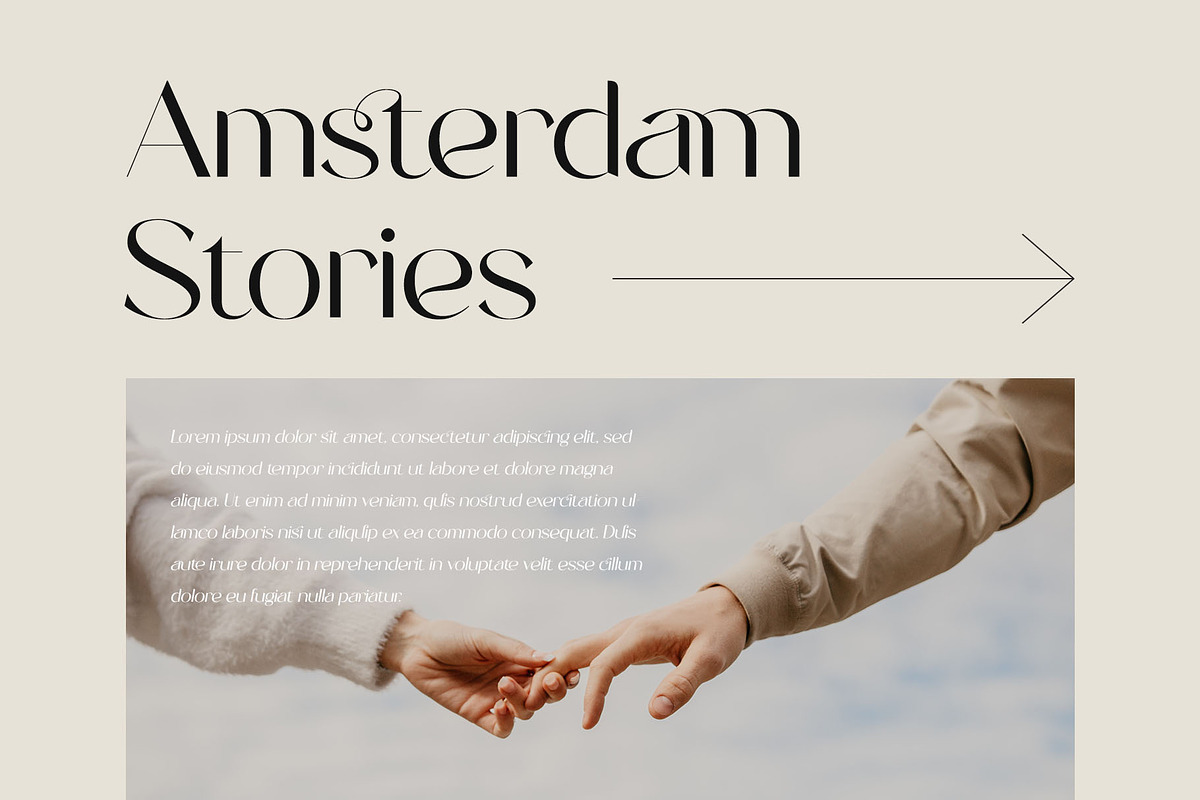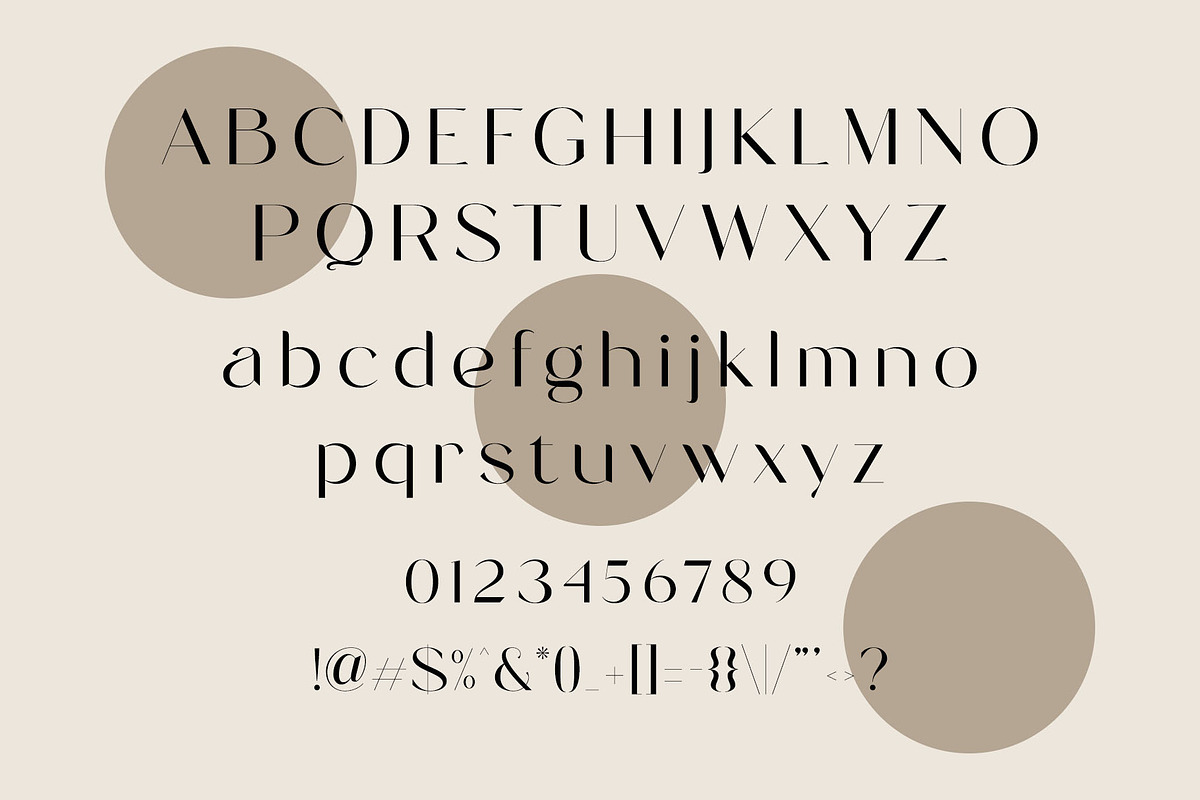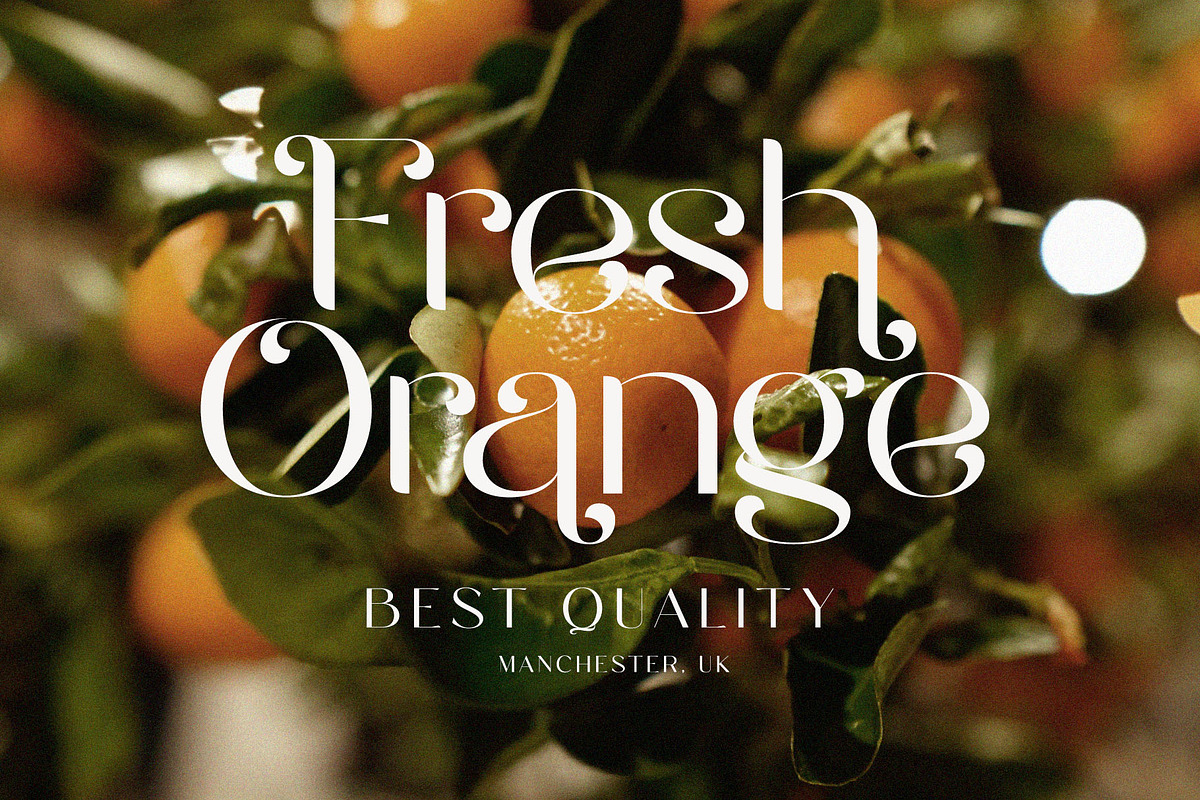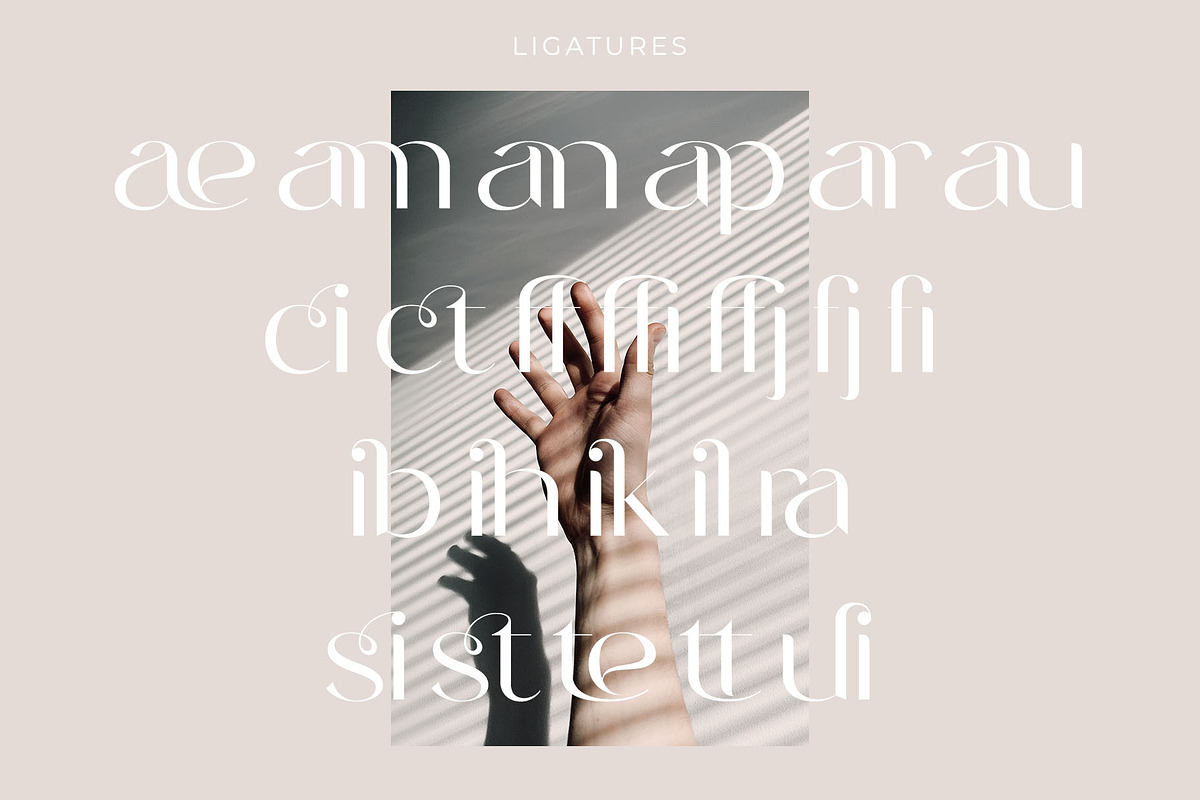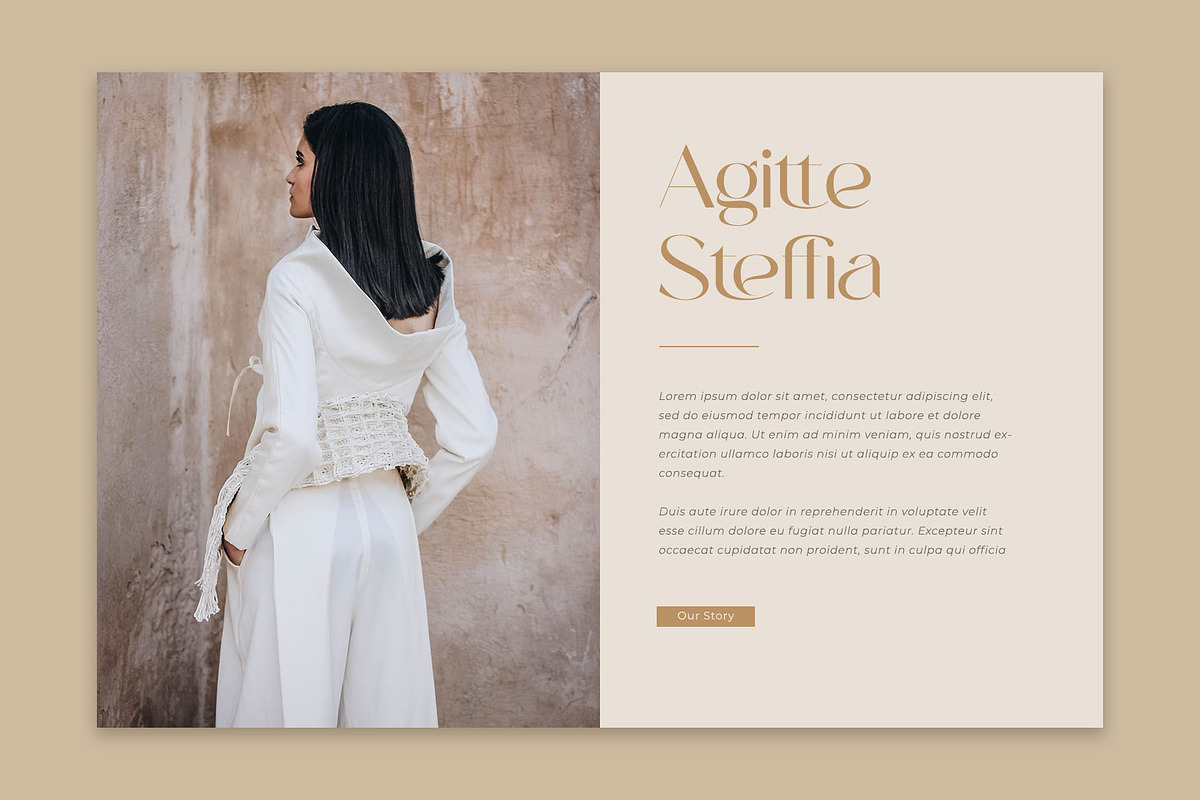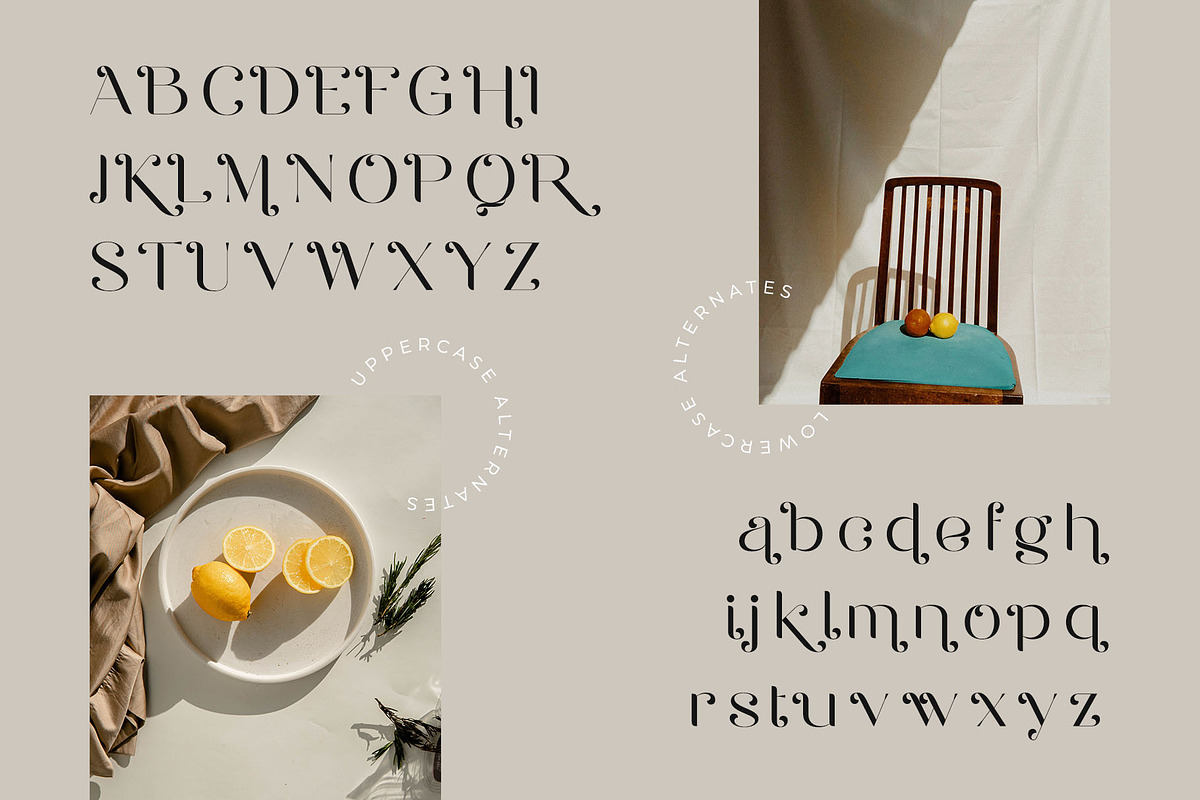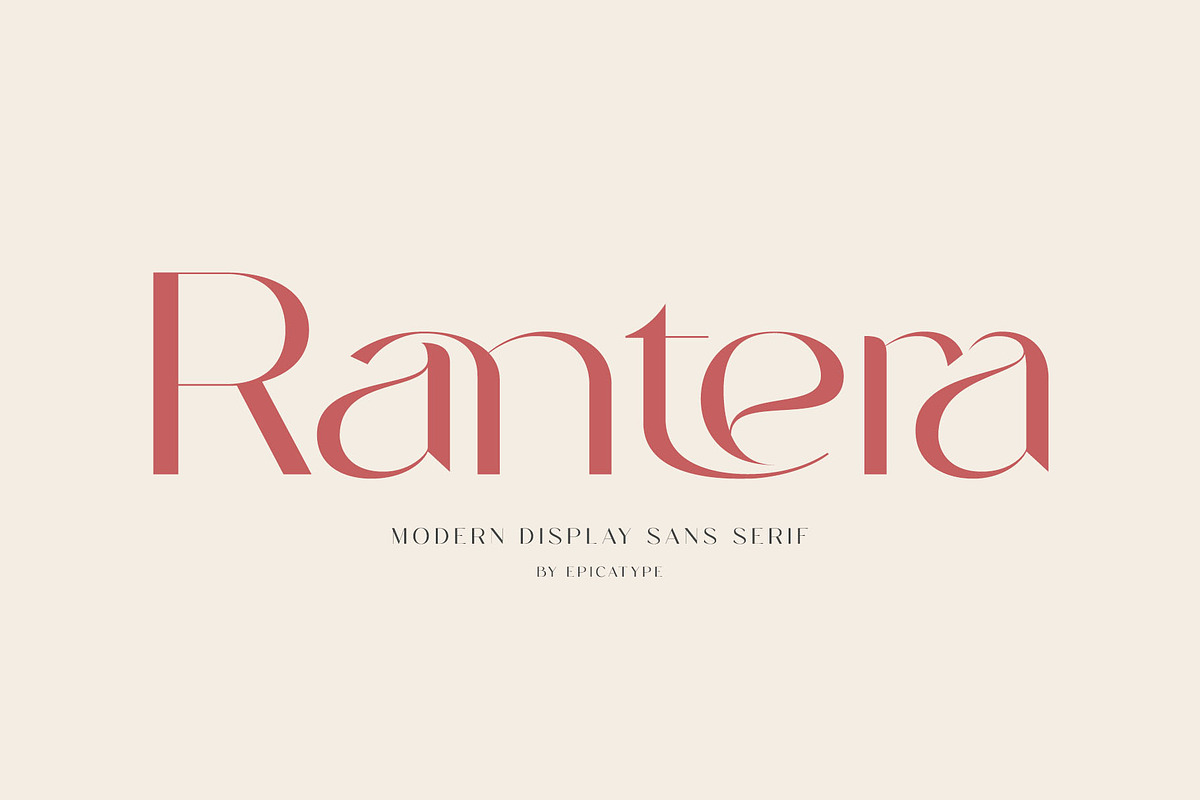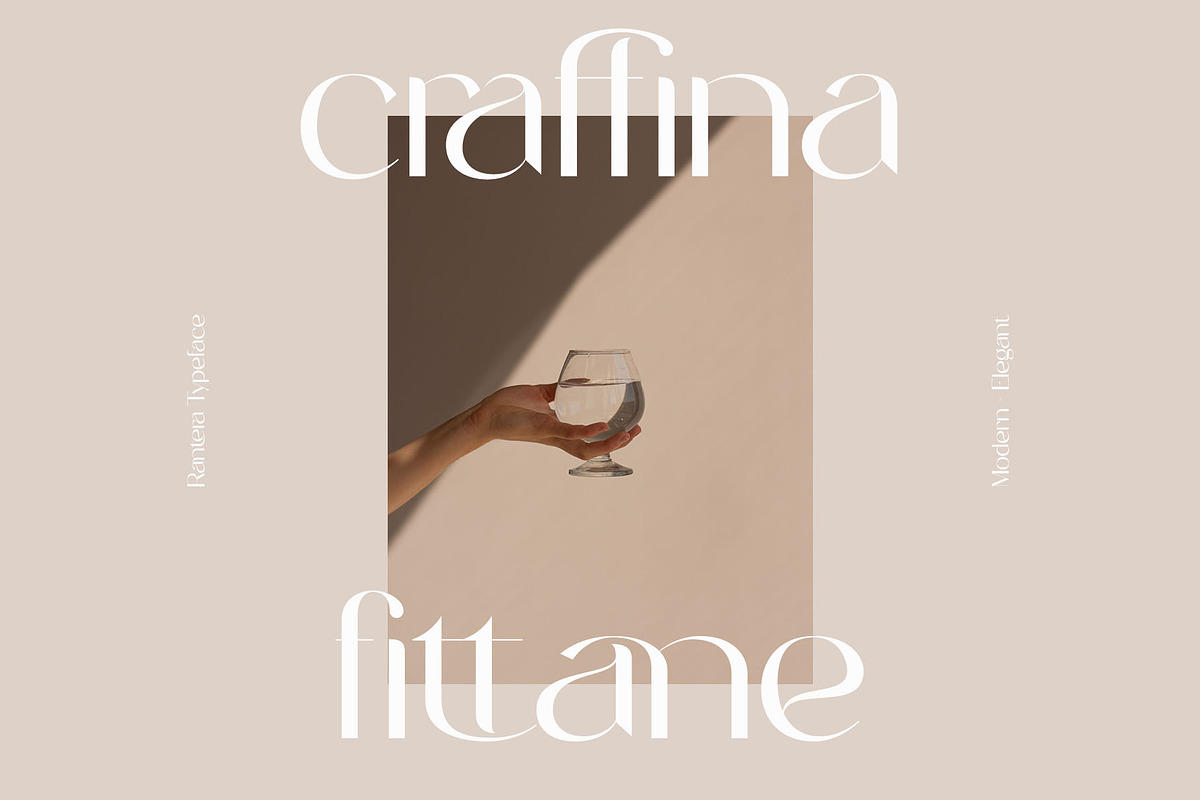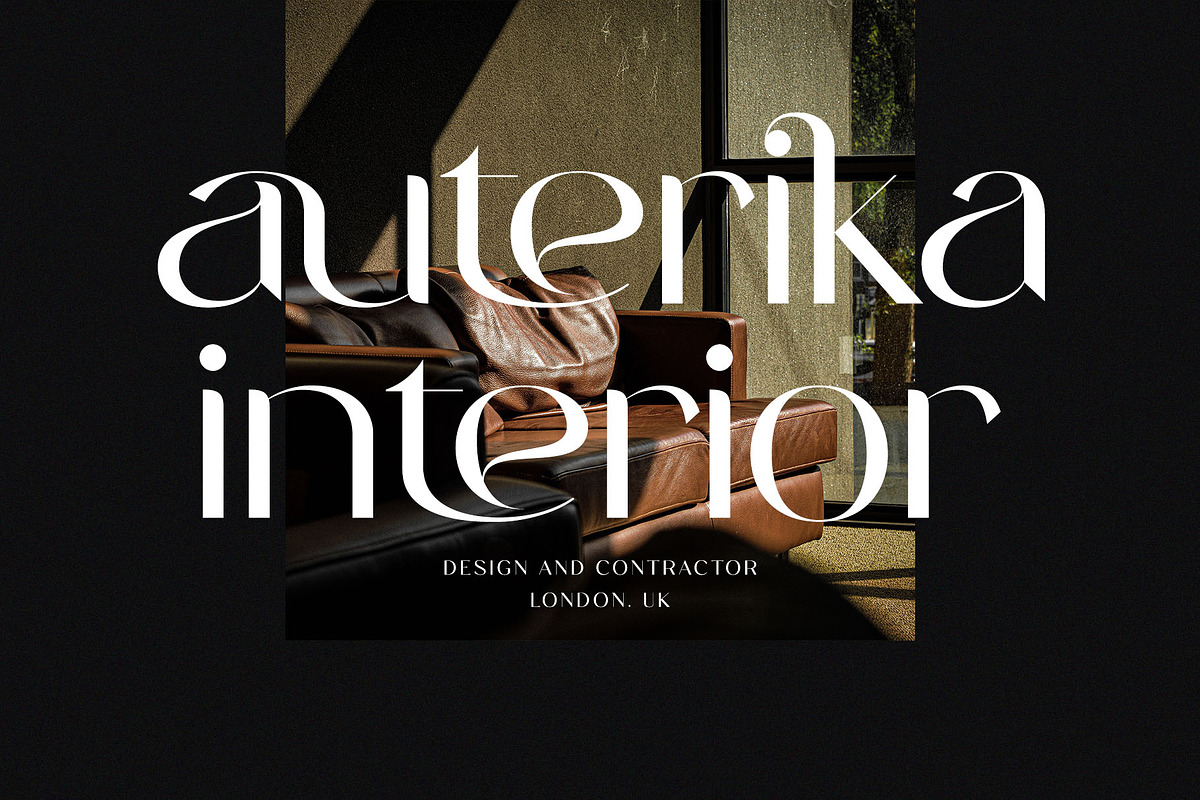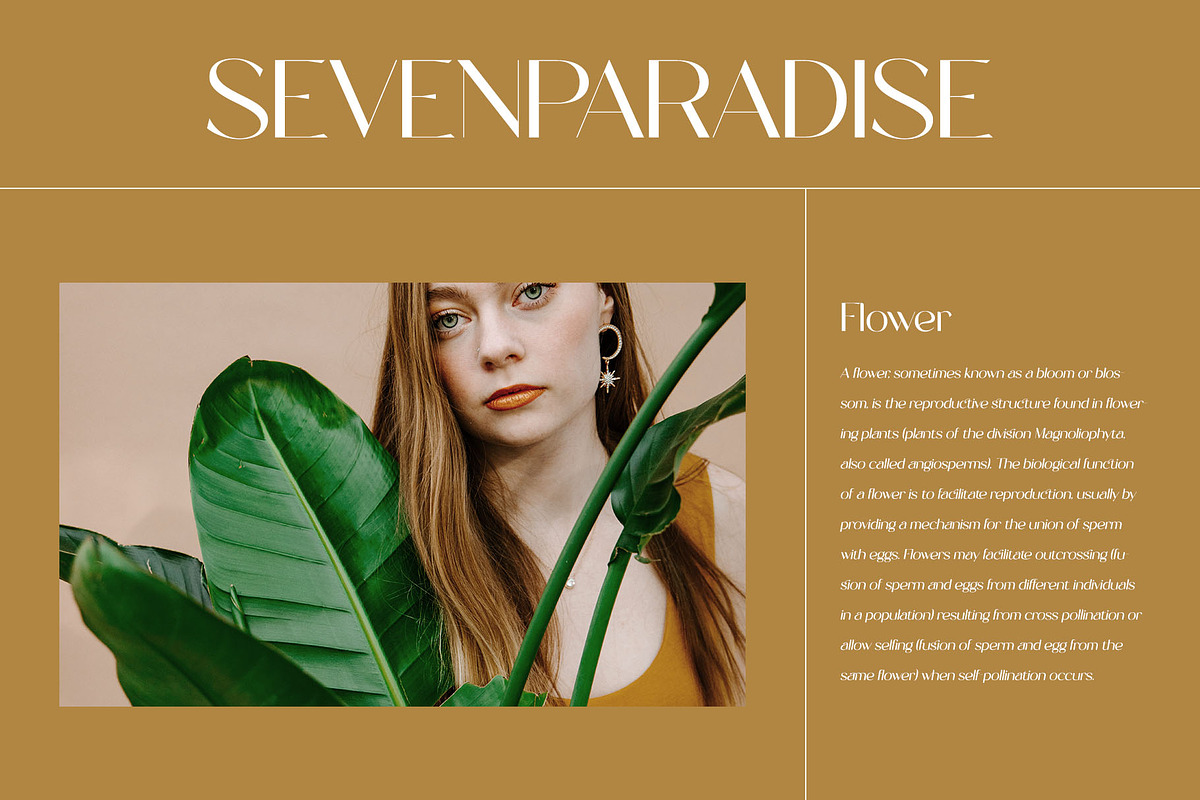
Rantera - Display Ligature Sans
Hello, Start good day for new font! present to you, Rantera! A stylish modern ligature font. It's soft curves mixed with high contrast glyphs lend it self to both feminine and masculine qualities. Equipped with epic ligature, great in layout design for quotes or body copy, and will be unique to the use of the logo design. And also multilingual support.